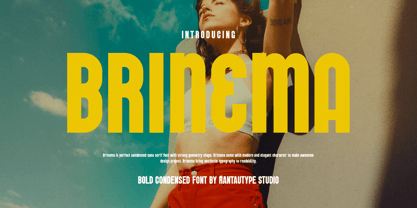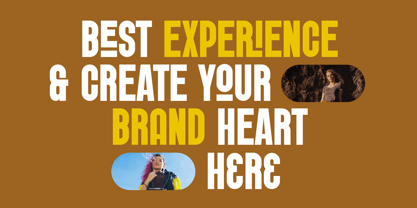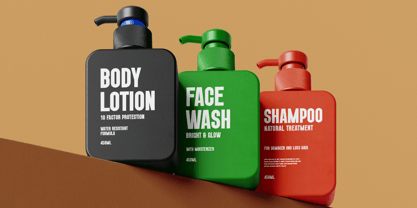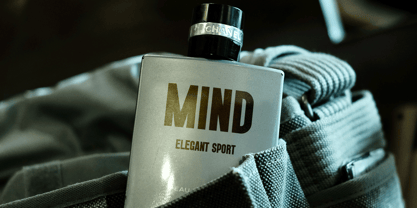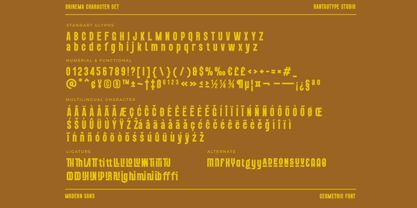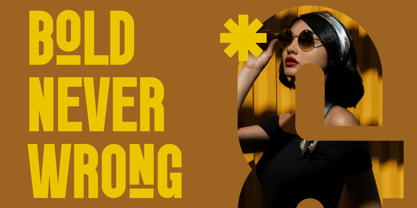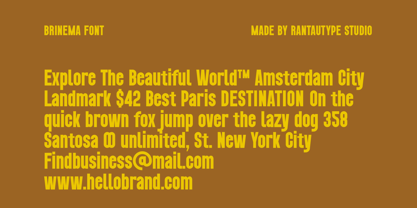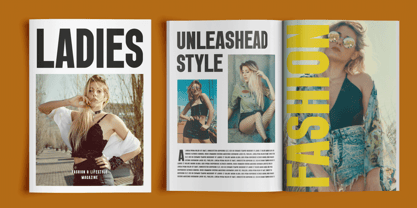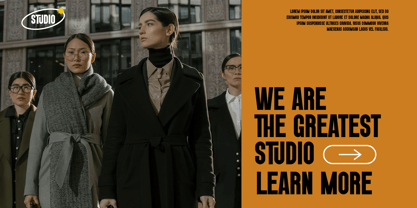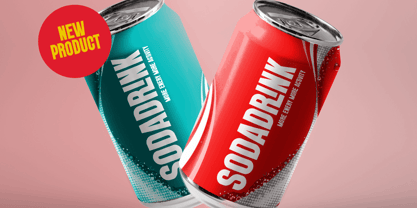
Brinema
by RantauType
The Brinema Font Family was designed by Yudi Pratama Chandra and published by RantauType. Brinema contains 1 styles. More about this family
Brinema is perfect condensed sans serif font with strong geometry shape. Brinema come with modern and elegant character to make awesome design project. Brinema bring aesthetic typography to readability.
Brinema is a perfectly choice for any creative endeavor, chic, lifestyle design such as logotype, advertisements, watermark on photography, stationery, branding project, display and magazine, invitation, corporate brand, product design, label, business project and many other project with modern and elegant touch.
• Standart Glyphs
• Numberial and Functional
• Alternate and Ligature